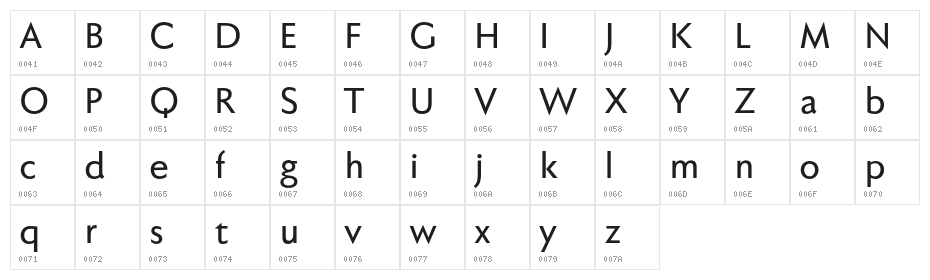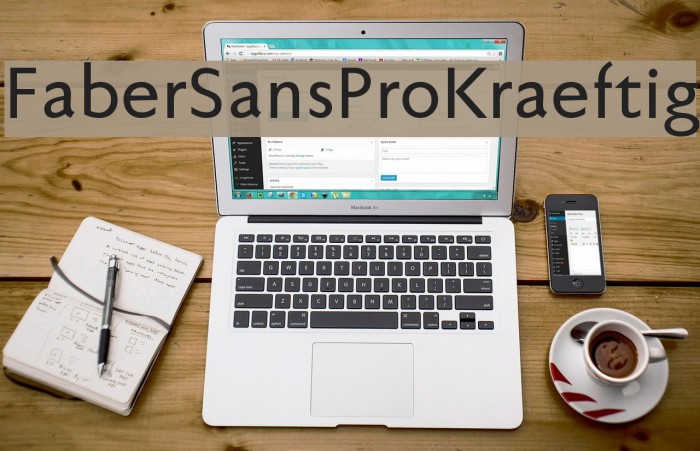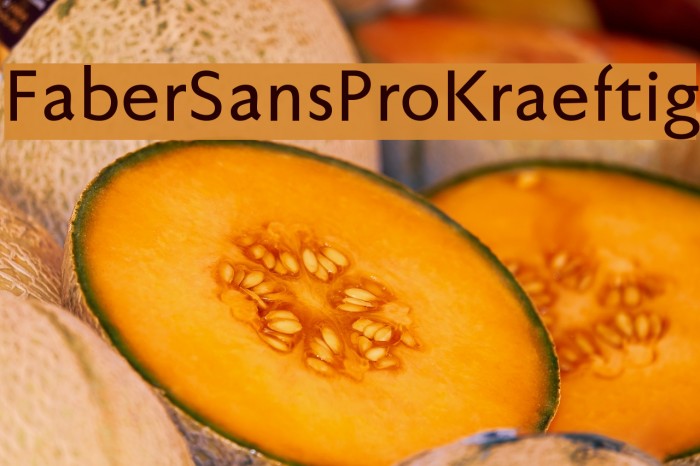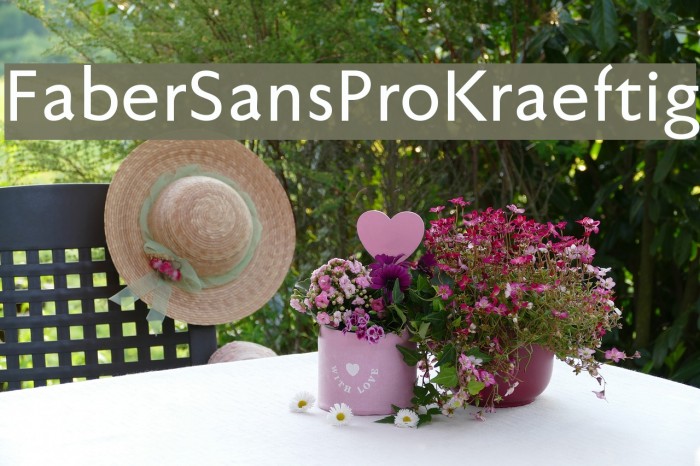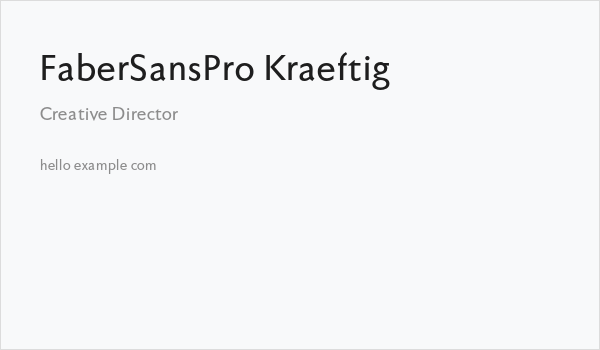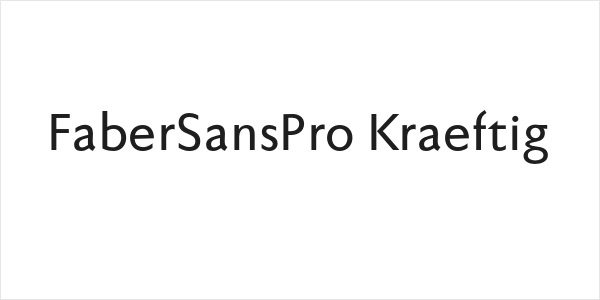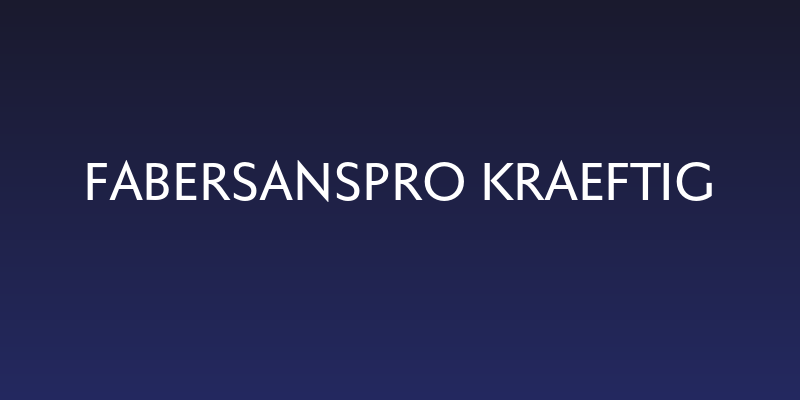
FaberSansPro-Kraeftig Font
FaberSansPro-Kraeftig Description
This font features a clean and modern sans-serif design, characterized by its simplicity and readability. The letters are well-proportioned with a uniform stroke width, giving it a balanced and harmonious appearance. The uppercase letters are bold and assertive, while the lowercase letters maintain a friendly and approachable look. The numerals are clear and distinct, making them easy to read. Special characters are included, adding versatility to the font's usage. Overall, this font is suitable for a wide range of applications, from digital interfaces to print media.
| Proposed Projects | Ideal for web design, corporate branding, editorial layouts, and user interfaces. |